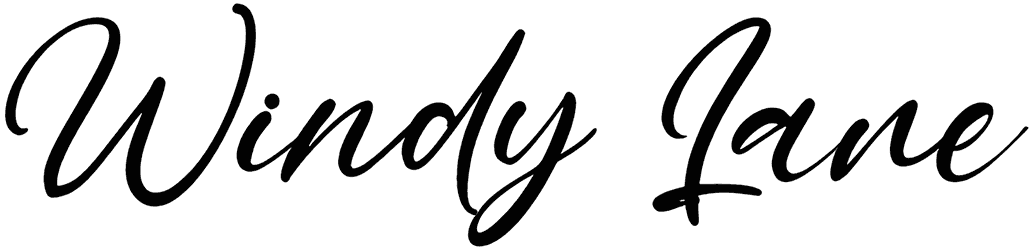
Windy Lane Font
Business cards, wedding invitations, diplomas, branding projects, or magazines are the best fields for utilizing a magical calligraphy font such as Windy Lane, which comes with soft characters and a cursive style that leads to a feeling of delicacy, professionalism, momentum, or vitality. Just in case you need another calligraphy font the same as this one, don’t hesitate to take a look at our rich archive.